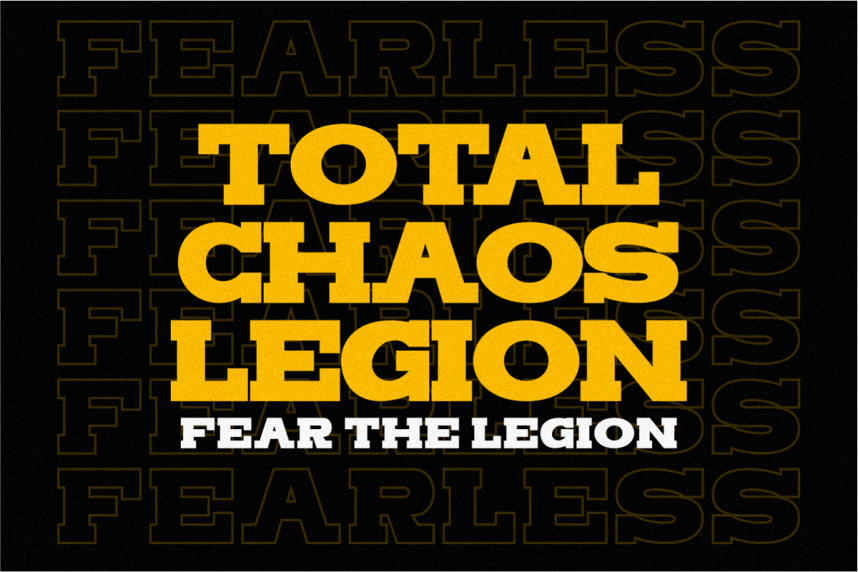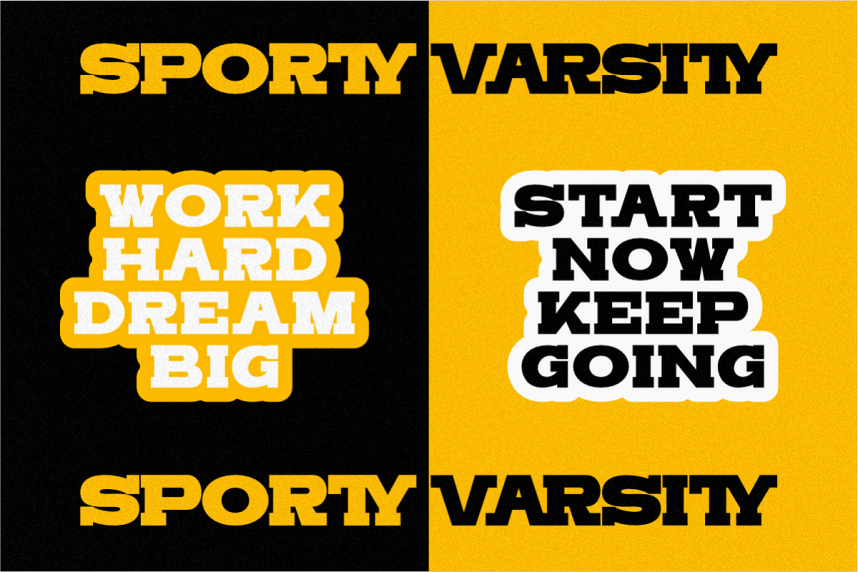
Sporty Varsity Font captures the bold and energetic spirit of athletic culture. It’s inspired by classic college lettering and varsity uniforms that symbolize teamwork and pride.
The design carries a nostalgic yet powerful look, perfect for sports branding and apparel. Each letter feels strong, structured, and confident.
This font adds energy and movement to your typography. It gives headlines and logos a sense of victory and enthusiasm.
This font works beautifully for sports clubs, school emblems, event posters, and dynamic product packaging. It represents competition and unity.
Its crisp edges and block-style form ensure perfect readability from a distance. That’s why it’s great for large-scale displays.
Type Collegiate Display
Usage Ideal for team jerseys, banners, and athletic branding
This font is more than a typeface, it’s a symbol of strength, passion, and competitive spirit, ready to power up any design.